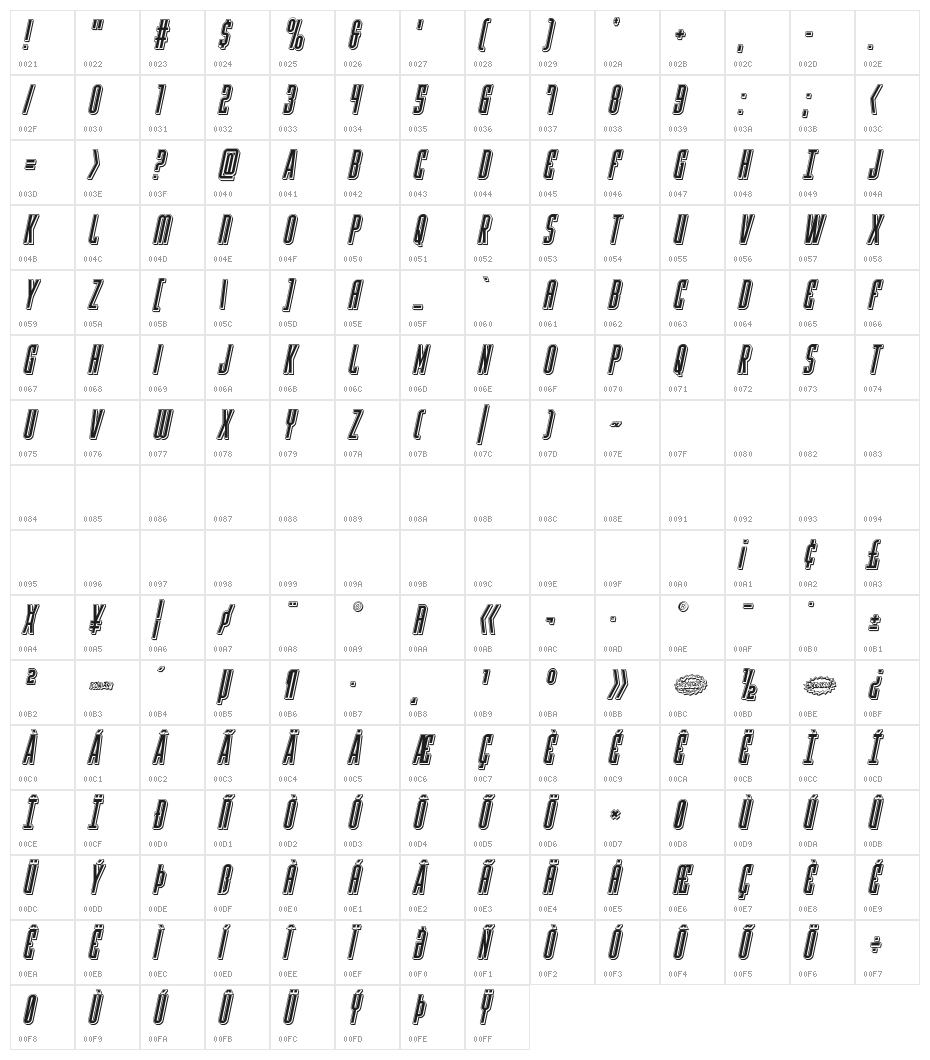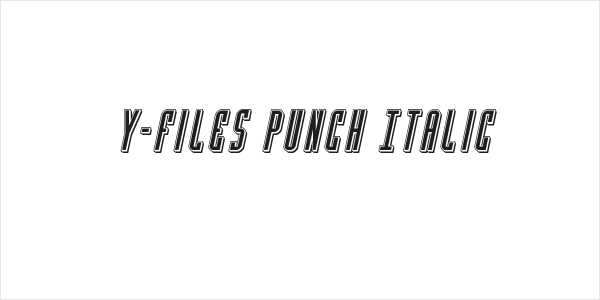
Y-Files Punch Italic Font
Y-Files Punch Italic Description
This font features a bold, italicized style with a strong, impactful presence. The letters are outlined with a thick border, giving them a three-dimensional effect. Each character is slightly slanted, enhancing the dynamic and energetic feel of the font. The uppercase and lowercase letters maintain a consistent design, with sharp angles and clean lines. The numbers and special characters follow the same aesthetic, ensuring uniformity across all elements. This font is ideal for projects that require a bold statement and a modern, edgy look.
Proposed ProjectsIdeal for sports branding, poster headlines, and dynamic logo designs.